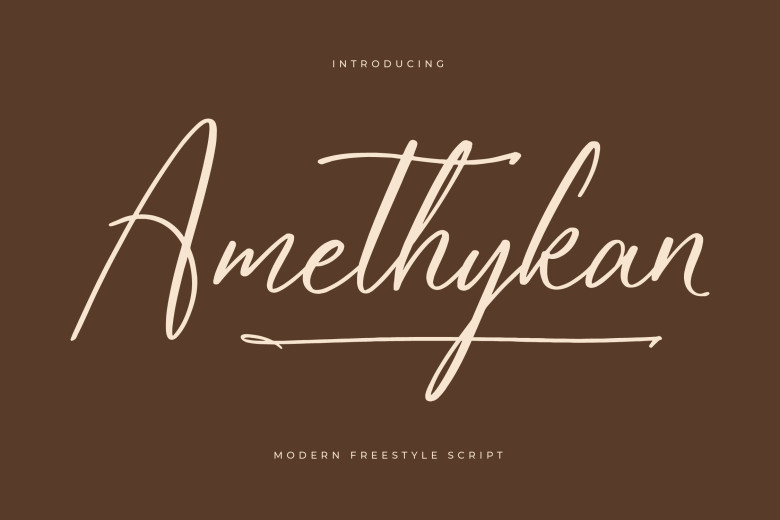
Amethykan Font
Amethykan is an elegant script font, distinguished by its graceful curves. The flowing strokes create a sense of romance which makes Amethykan suitable for branding, invitations, and elegant designs in general. Furthermore, this timeless font can also make a lasting statement as part of an invitation or branding package.
Amethykan Handwritten Script Font